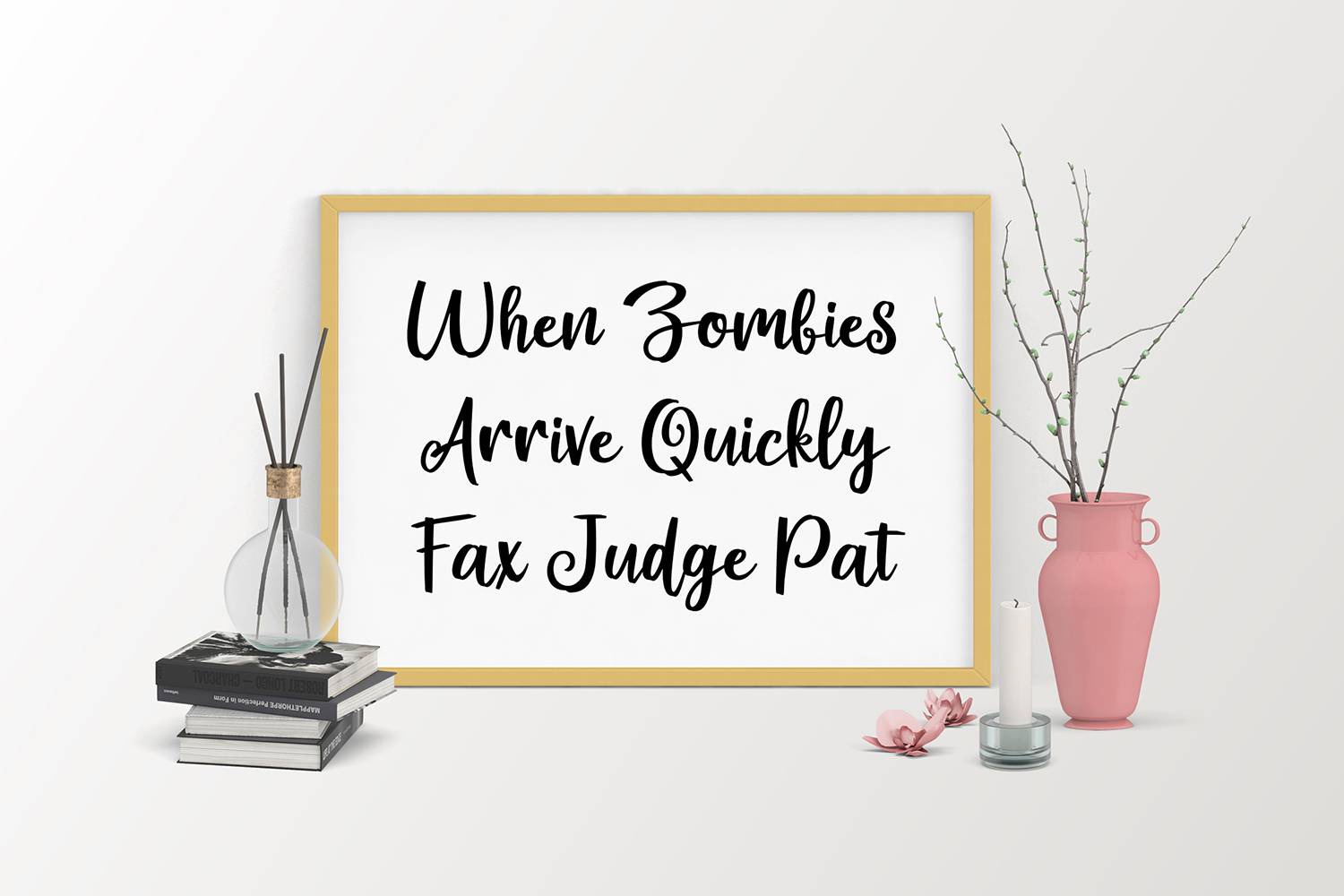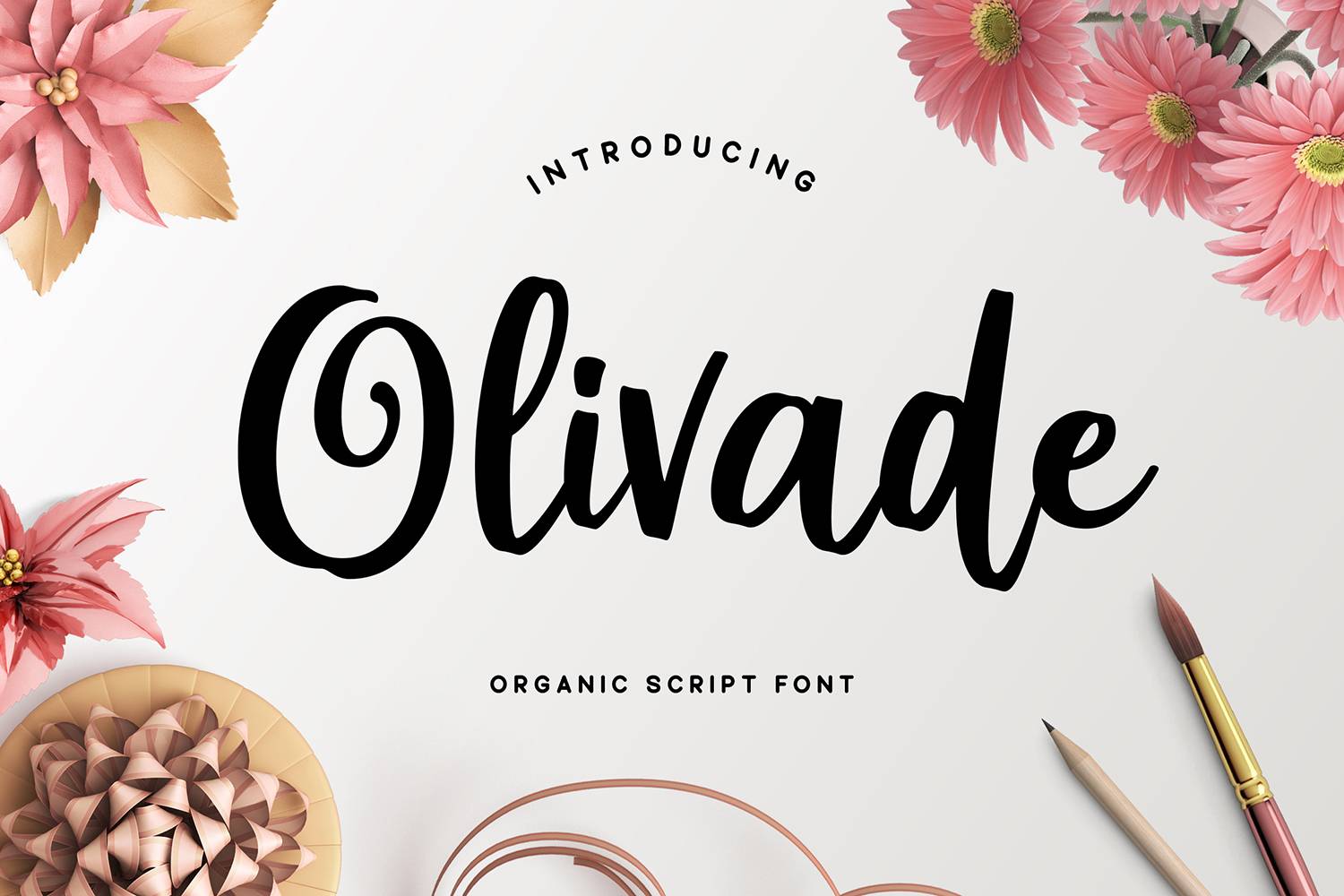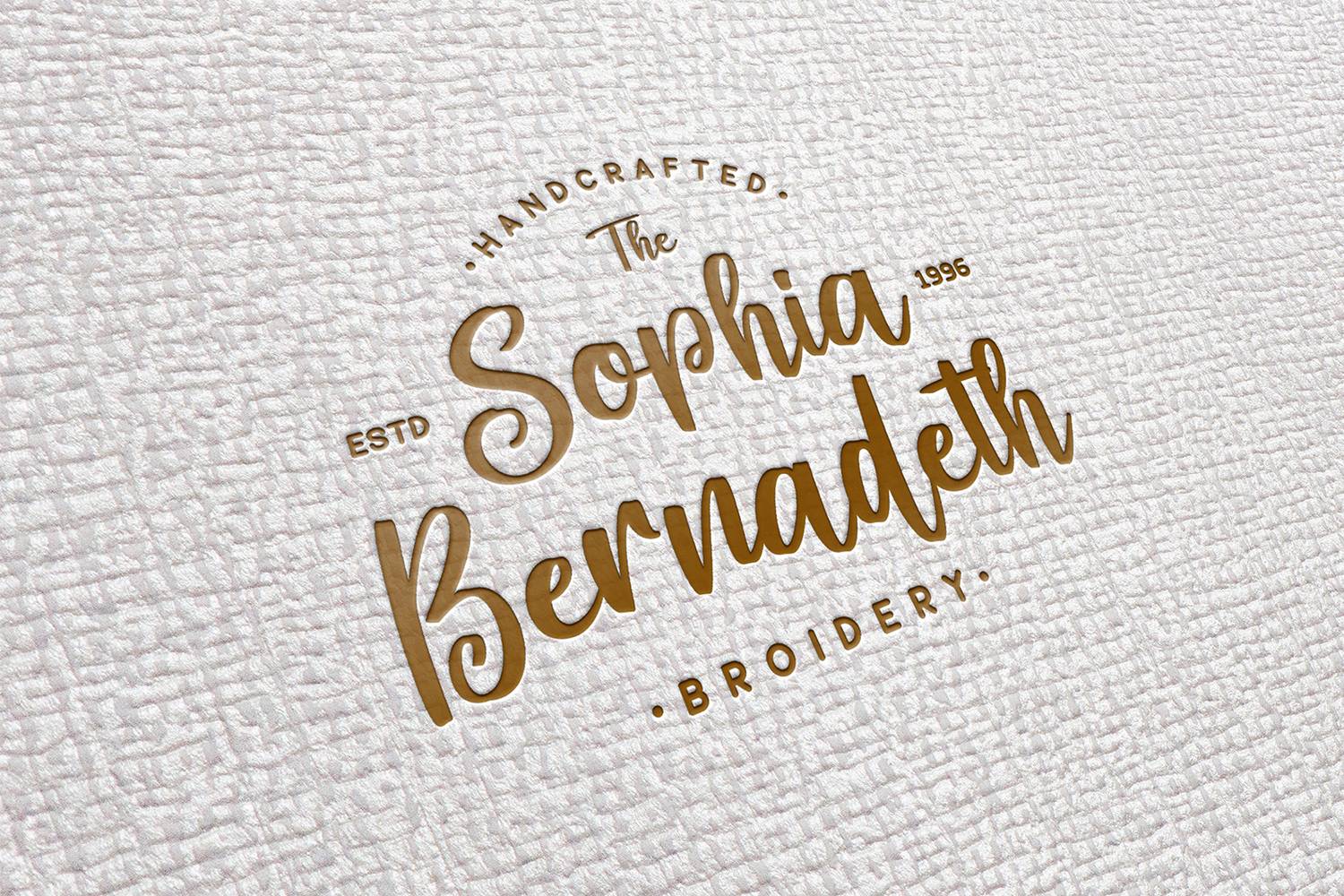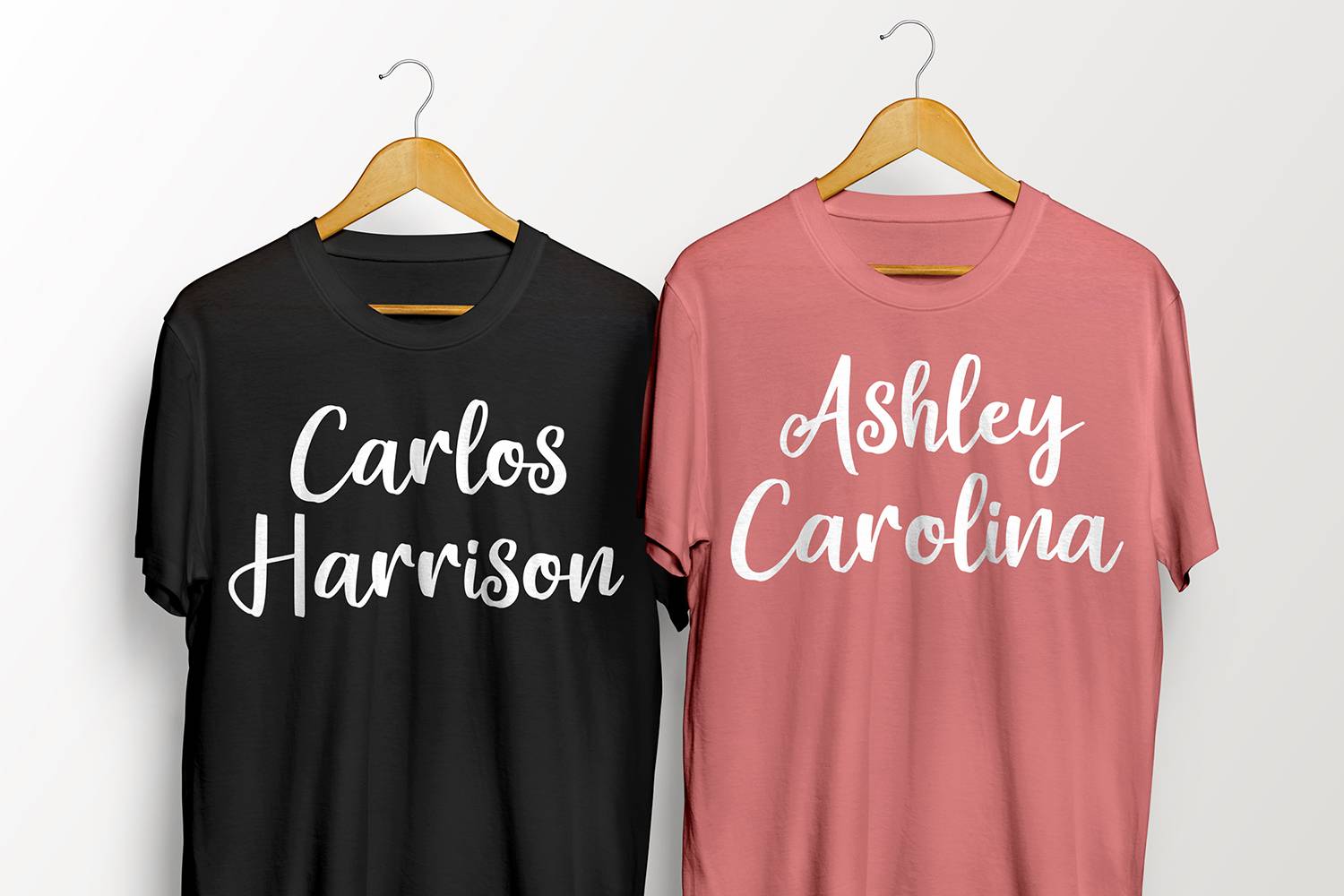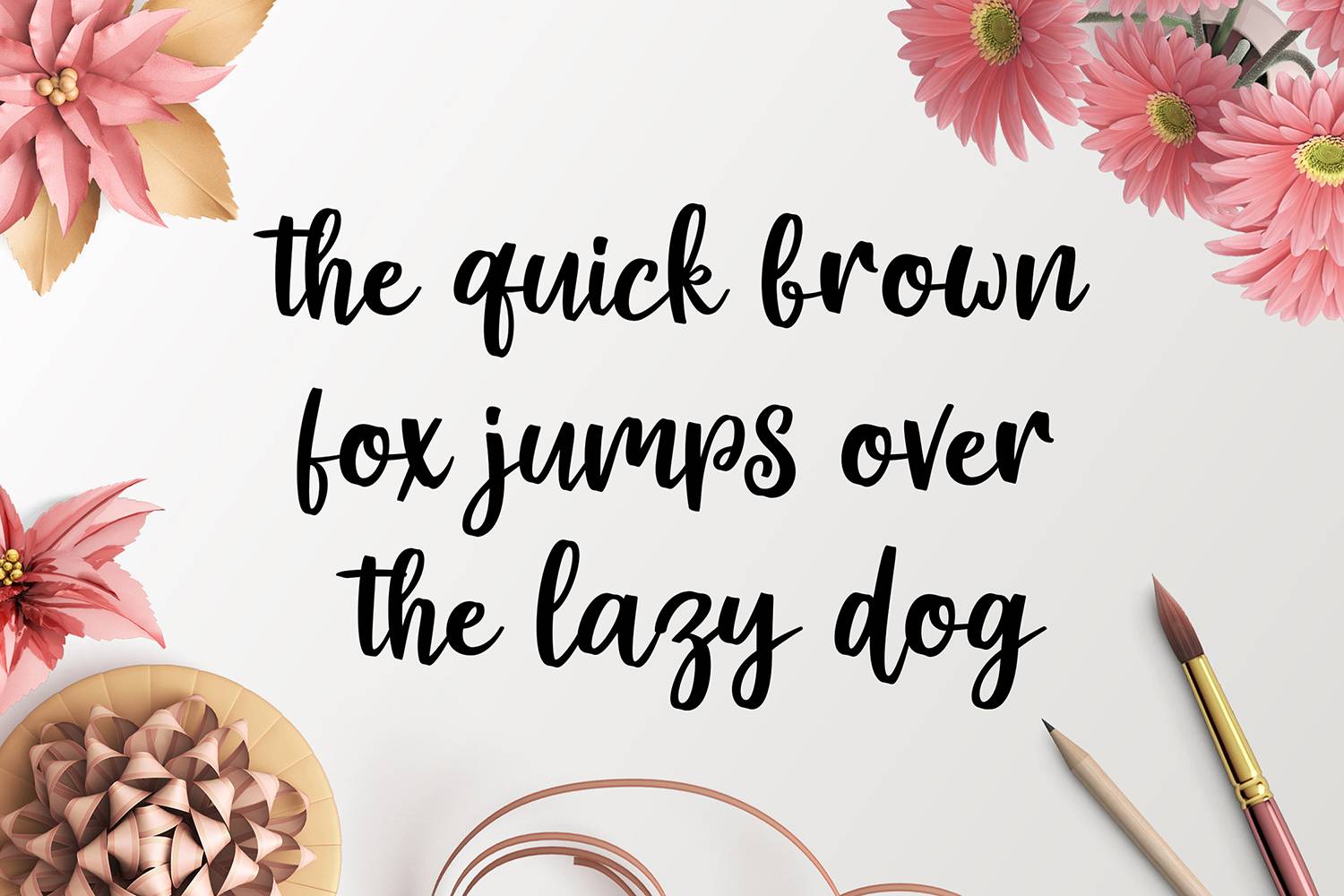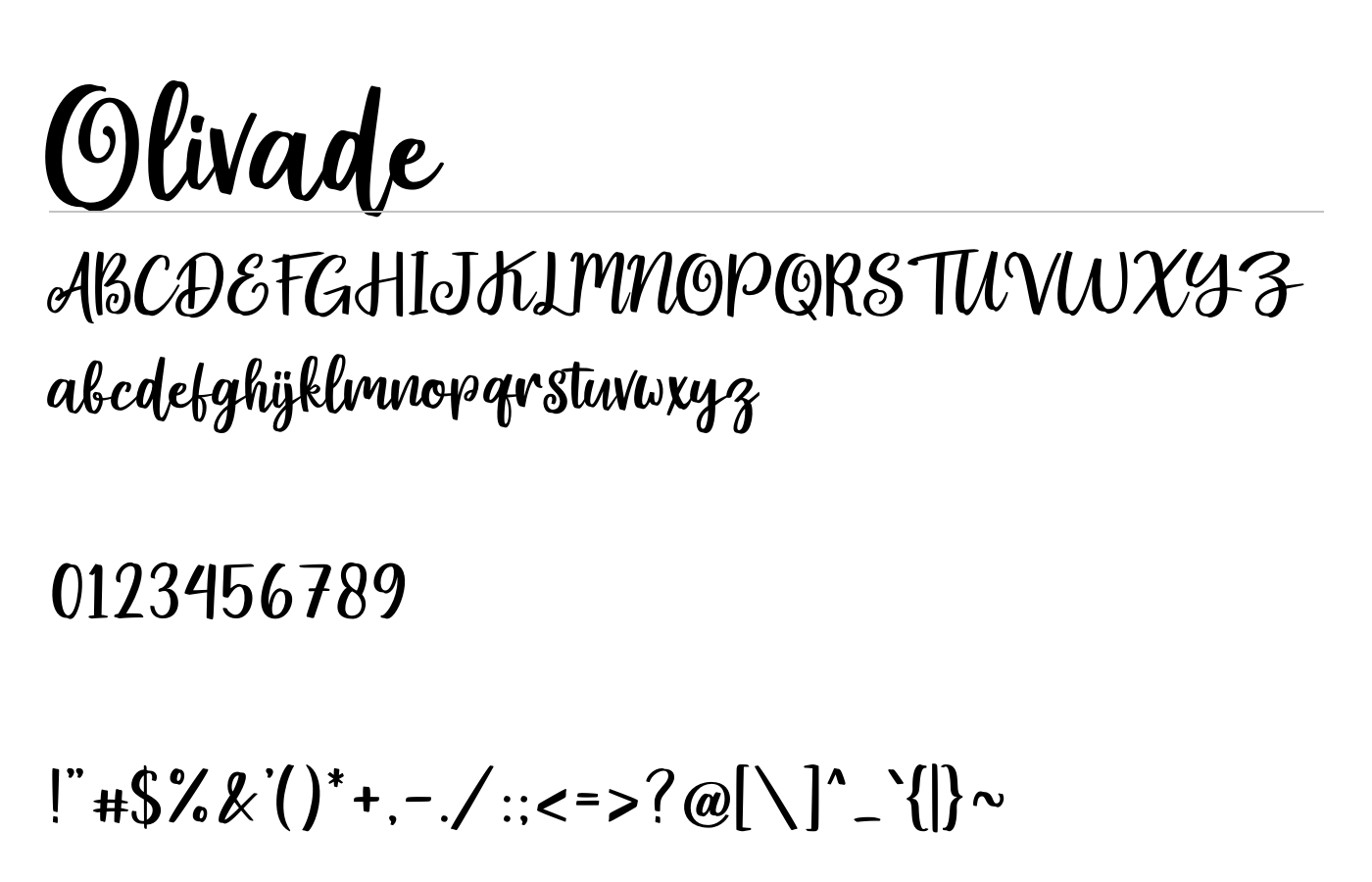
Olivade is a lively and stylish script font with a hand-drawn feel, featuring smooth, flowing strokes and playful letterforms that bring a personal, friendly touch. Its medium weight and slightly condensed width make it versatile for both display use and short text, perfect for branding, invitations, and creative projects that want to convey warmth and charm. The font’s elegant yet approachable character suits fashion, lifestyle, and boutique brands seeking an inviting and modern handwritten look.
Olivade Font
About Olivade Font
| Font family | Olivade Font |
| Designer | Akhmad Reza Fauzi |